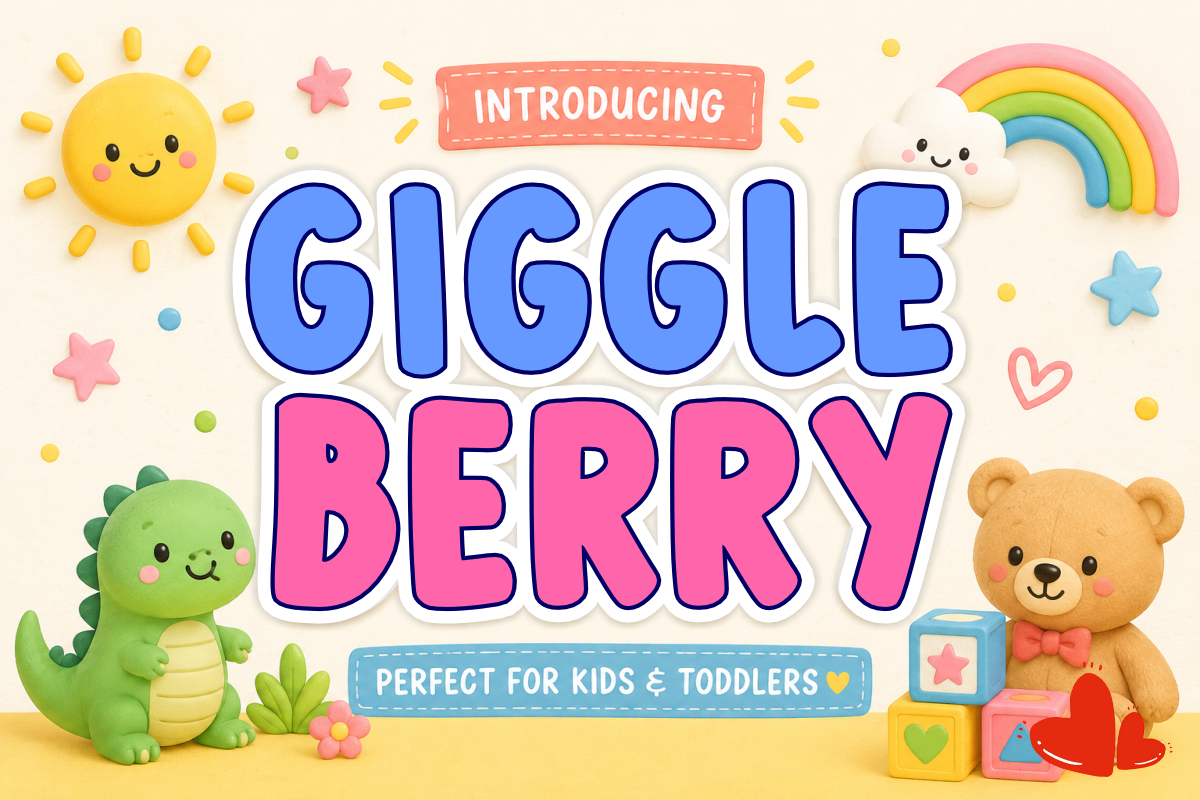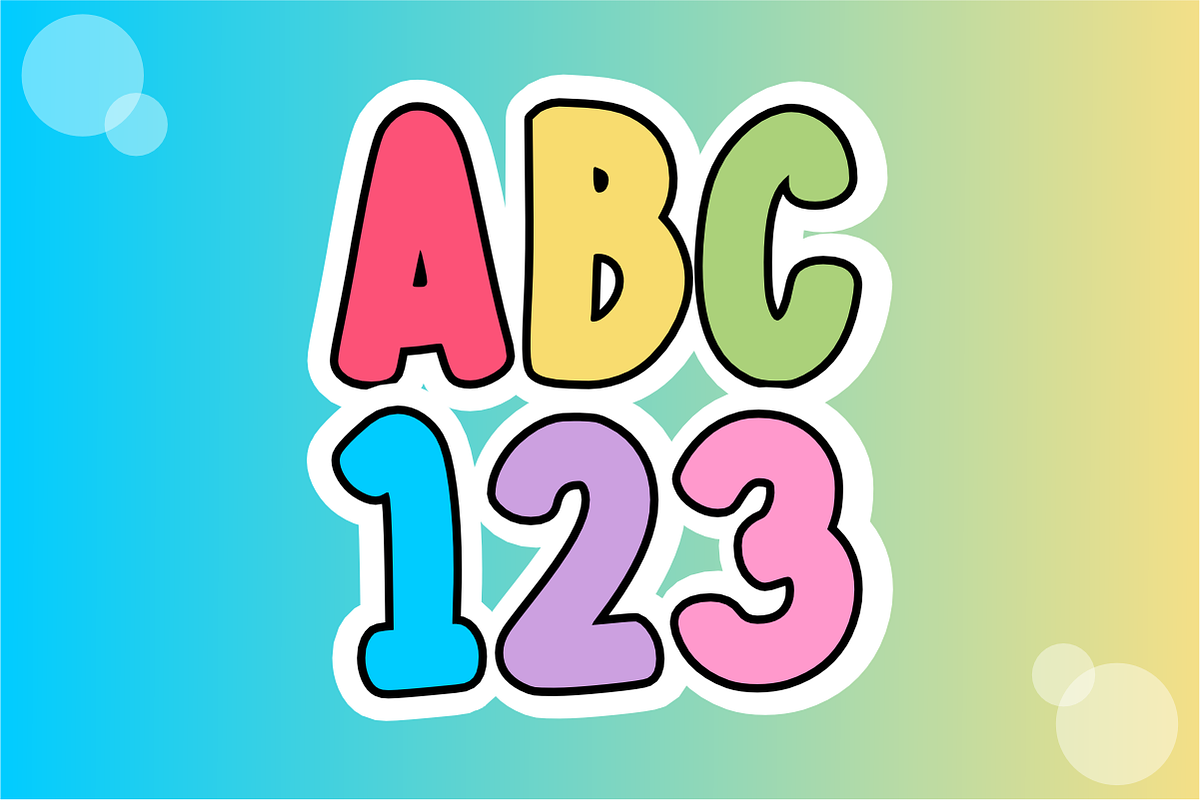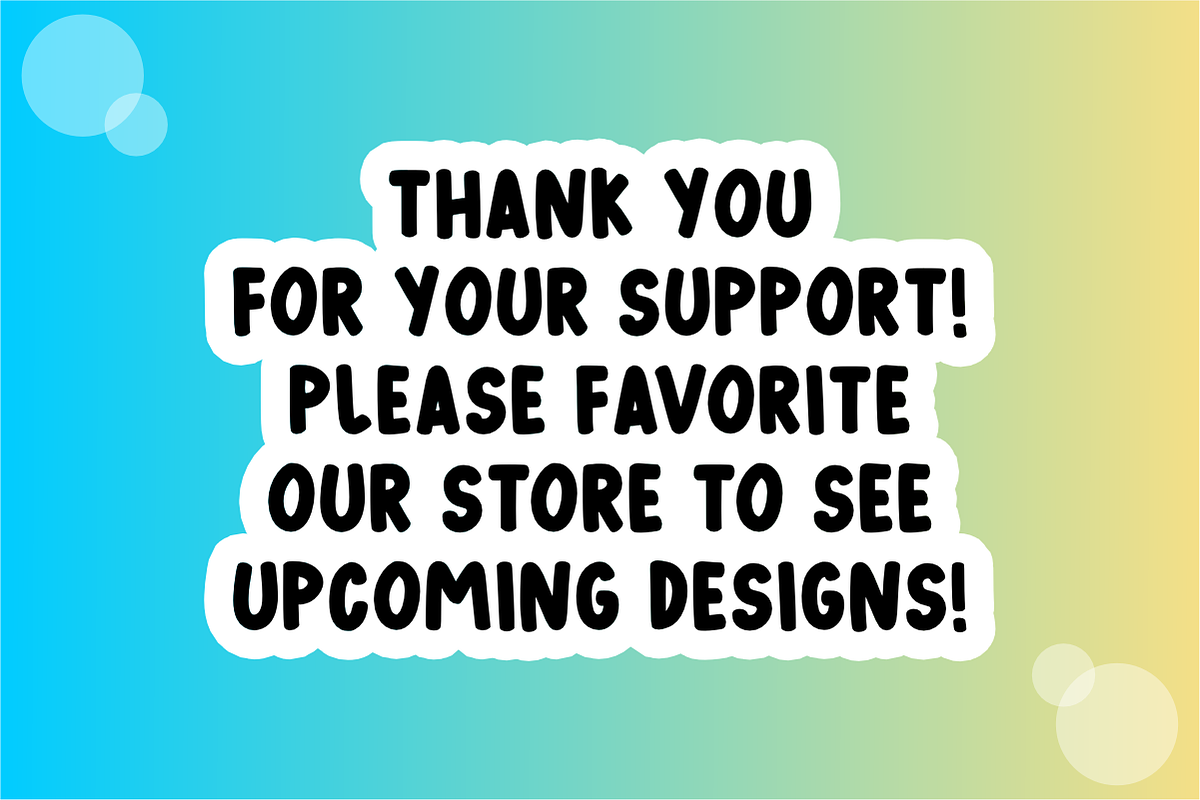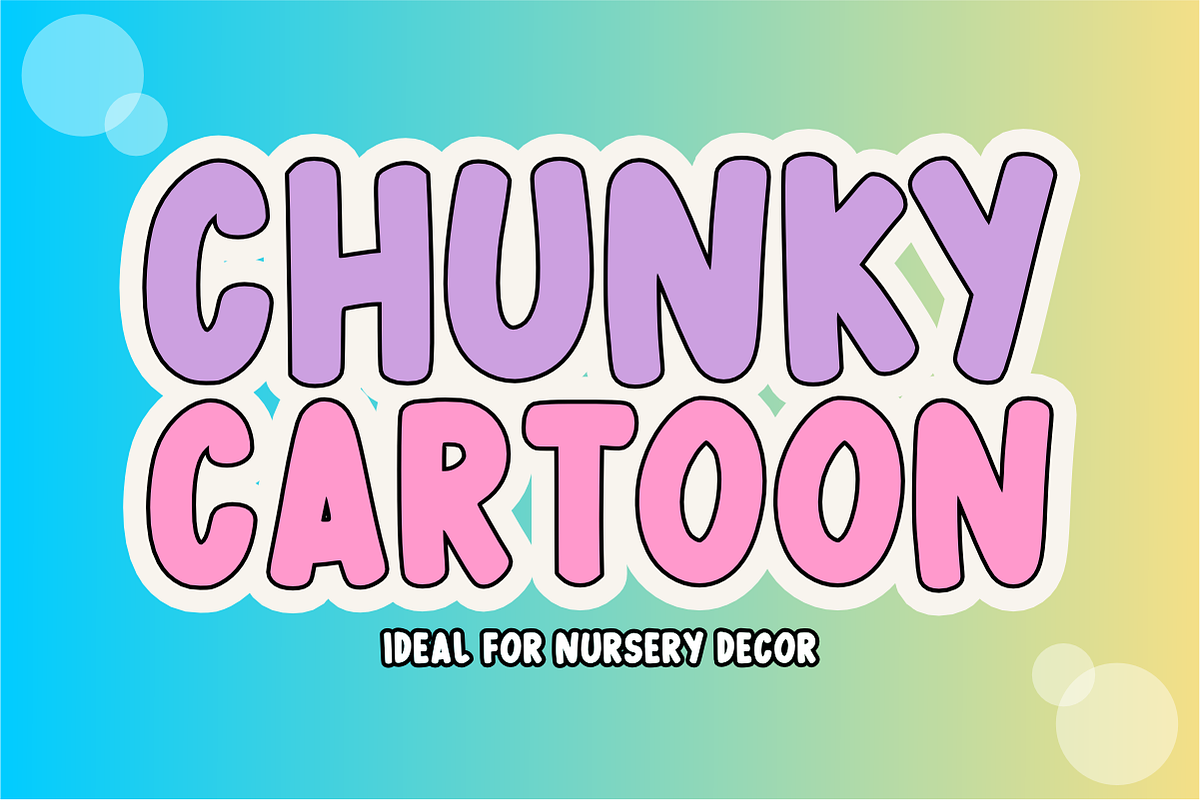
Giggleberry - Cute Kids Craft Font
Giggleberry is a playful, bubbly display font featuring chunky, rounded letterforms full of toddler-friendly charm and cheerful energy. Perfect for children’s apparel, nursery decor, storybooks, and sweet party printables, this adorable font adds a joyful, hugs-and-giggles pop to all your creative projects. Every character is cleanly vectorized to guarantee high-resolution prints and smooth, effortless cutting on Cricut and Silhouette machines.
Ideal For:
Cricut, Silhouette, and HTV vinyl cutting projects for toddler apparel, baby onesies, and cute accessories
Etsy sellers creating custom kids' t-shirts, nursery prints, birthday invitations, and baby shower gifts
Teachers Pay Teachers (TpT) authors making fun toddler activities, alphabet flashcards, and classroom decor
Print-on-Demand (POD) products, children's book covers, sticker sheets, and toys packaging
Canva template creators designing birthday party graphics, social media kits, and playful flyers
Custom die-cut sticker packs, planner decals, and digital scrapbooking layouts